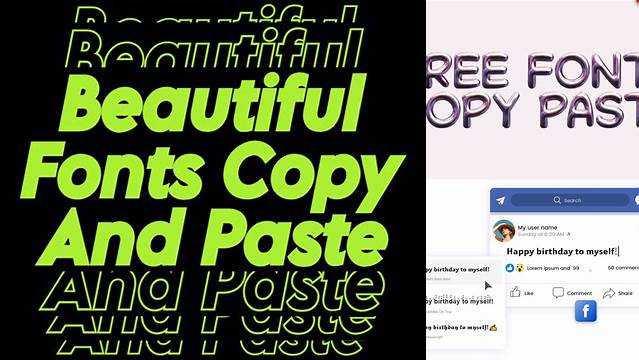
Free Bold Fonts: Copy & Paste Guide For Stunning Text
Hey guys! Ever felt like your text is just…blah? Like it needs a serious shot of bold energy? You're in the right place! In this article, we're diving deep into the world of free bold fonts, and how you can easily copy and paste them to create eye-catching designs. Forget boring text – let's make your words pop!
What are Bold Fonts and Why Do They Matter?
Let's start with the basics. What exactly are bold fonts? Simply put, they're fonts that have been made thicker and heavier than their regular counterparts. This added weight makes them stand out, grabbing the reader's attention and conveying a sense of importance. But why do they matter so much? Well, bold fonts are visual powerhouses. They're fantastic for headlines, subheadings, call-to-actions, and any text you want to emphasize. Imagine a poster without any bold text – it would be a monotonous wall of words! Bold fonts create hierarchy, guiding the reader's eye and highlighting key information. Think of them as the spotlights of the text world, ensuring that the important stuff shines. For example, when you're designing a website, strategically using bold fonts can make your headlines jump off the page, drawing visitors in and making them want to learn more. In a resume, bolding your job titles and key skills helps them stand out to potential employers. Even in everyday emails, bolding certain words can emphasize your point and prevent miscommunication. So, whether you're a designer, a marketer, a student, or just someone who wants to make their text look better, understanding and utilizing bold fonts is a game-changer. They're the secret weapon for adding impact and clarity to your written communication. It is crucial to understand how to effectively integrate bold fonts into your projects to maximize their impact. From websites to presentations, the strategic use of bold text can significantly enhance readability and engagement. Learning to identify the best contexts for bold fonts will help you create visually appealing and highly effective designs. This understanding also extends to choosing the right type of bold font, as different fonts convey different emotions and styles. The key is to use them judiciously to avoid overwhelming the reader and ensure that your message remains clear and concise.
1. Finding Free Bold Fonts Online
Okay, so you're sold on the power of bold fonts. Now, where do you find them? The internet is a treasure trove, guys! There are tons of websites offering free bold fonts for download and use. Sites like Google Fonts, Font Squirrel, and DaFont are excellent starting points. These platforms boast massive libraries, with thousands of fonts available for free, many of which have bold variations. When you're browsing, pay attention to the licensing. Most free fonts come with a license that specifies how you can use them – whether it's for personal projects, commercial work, or both. Make sure you understand the terms before you start incorporating the font into your designs. Google Fonts is particularly great because it offers a wide selection of open-source fonts that you can use freely in any project. Font Squirrel is known for its high-quality, hand-picked selection of free fonts, ensuring you get something truly special. DaFont is a classic resource, with a huge community and a diverse range of styles, but it's essential to double-check the license for each font you download there. The process of finding free bold fonts can be exciting, but it’s important to be discerning. Consider the style you're aiming for and the overall tone of your project. A bold font that's perfect for a playful logo might not be suitable for a professional document, and vice versa. Take your time to explore different options, and don’t be afraid to experiment. You might discover some hidden gems that perfectly match your creative vision. Remember, the right font can make all the difference, turning a good design into a great one. So, happy font hunting!
2. Copy and Paste Bold Text Using Online Generators
Sometimes, you don't need to download a whole font file. You just need to quickly make some text bold for a social media post, a comment, or a message. That's where online bold text generators come in handy! These tools allow you to type in your text, and with a single click, they'll transform it into bold using special Unicode characters. You can then simply copy and paste the generated bold text wherever you need it. Cool, right? Websites like YayText and LingoJam are popular choices. They offer a range of bold styles, from simple bold to italic bold and even fancier variations. Keep in mind that these generators use Unicode, which means the bold effect might not be visible everywhere. Some platforms or applications might not fully support these special characters, so always double-check how your text looks after you paste it. However, for most online uses, these generators are a super convenient way to add a touch of boldness to your words without the hassle of downloading and installing fonts. The versatility of these generators makes them incredibly useful for a variety of situations. For example, if you’re crafting a tweet and want to emphasize a particular point, a bold text generator can help you do that quickly and easily. Similarly, in online forums or chat rooms, using bold text can make your comments stand out and ensure that your message is clearly understood. While the visual appearance of the generated text might vary slightly depending on the platform, the underlying Unicode characters will generally maintain the bold effect. This is a fantastic tool for anyone who wants to add emphasis to their text in a pinch, without getting bogged down in font installations or complicated formatting procedures. The ease of copy and paste functionality makes it a seamless addition to any digital workflow, allowing for instant enhancements to your written communication.
3. Using HTML to Bold Text
If you're working on a website or any project that involves HTML, bolding text is a breeze. You can use the <strong>
or <b>
tags to make text bold. The <strong>
tag is used to indicate important text, while the <b>
tag is a more stylistic choice for making text bold without implying importance. In most cases, you'll want to use <strong>
for accessibility reasons, as screen readers will interpret it as significant. To use these tags, simply wrap the text you want to bold between the opening and closing tags. For example, <strong>This text will be bold</strong>
will render as This text will be bold. Similarly, <b>This text will also be bold</b>
will render as This text will also be bold. HTML provides a robust and semantic way to control the appearance of your text, ensuring that your formatting is both visually appealing and accessible. The key distinction between <strong>
and <b>
lies in their semantic meaning. While both tags make text visually bold, <strong>
signifies that the text has strong importance or urgency. This semantic information is crucial for assistive technologies like screen readers, which use it to convey the text's significance to users with visual impairments. The <b>
tag, on the other hand, simply makes the text bold without implying any additional importance. This makes it suitable for purely stylistic purposes, such as highlighting keywords or section headings where the emphasis is visual rather than semantic. By choosing the appropriate tag, you can ensure that your website is not only visually appealing but also accessible and user-friendly for everyone. Understanding the nuances of HTML formatting allows you to create well-structured and semantically rich content that enhances the overall user experience. Whether you're a web developer or a content creator, mastering these basic HTML elements is essential for effective communication and design.
4. Bold Fonts in Microsoft Word
For those of you who spend a lot of time in Microsoft Word (and let's be honest, who doesn't?), bolding text is super easy. There are several ways to do it. The most straightforward method is to select the text you want to bold and then click the "B" button in the Font section of the Home tab. Alternatively, you can use the keyboard shortcut Ctrl+B (or Cmd+B on a Mac). Another option is to right-click on the selected text and choose the Bold option from the context menu. Word also allows you to change the font to a bold version directly from the font dropdown menu. Many fonts come in regular, bold, italic, and bold italic variations. So, if you know you want all the text in a particular paragraph to be bold, you can simply choose the bold version of the font from the start. The flexibility of Word makes it a fantastic tool for creating documents with a polished and professional appearance. The ability to easily bold text is just one of the many features that contribute to its widespread use in academic, professional, and personal contexts. Whether you're writing a report, a letter, or a resume, mastering the formatting options in Word is essential for effective communication. Remember, the strategic use of bold text can significantly enhance the readability and impact of your documents, making it a valuable skill to develop. Word’s intuitive interface and versatile formatting options make it simple to emphasize key points and create visually appealing content, ensuring your message is conveyed clearly and effectively.
5. Bold Fonts in Google Docs
If you're a Google Docs user, you'll be happy to know that bolding text is just as simple as it is in Word. The process is very similar: select the text you want to bold, and then click the "B" button in the toolbar. You can also use the same keyboard shortcuts, Ctrl+B (or Cmd+B on a Mac). Google Docs also provides the option to right-click on the selected text and choose "Bold" from the menu. One of the great things about Google Docs is its collaborative nature. Multiple people can work on the same document simultaneously, and the formatting options, including bolding, are consistent across devices and platforms. This makes it easy to ensure that your documents look the way you intend them to, no matter who's viewing them or where they're being accessed. Google Docs' straightforward interface and real-time collaboration features make it an ideal tool for team projects and remote work. The convenience of accessing your documents from any device with an internet connection adds to its appeal, making it a versatile and user-friendly option for both personal and professional use. The consistency of formatting options, like bolding, across different devices ensures that your documents maintain their intended appearance and readability, regardless of the viewing environment. Whether you're working on a group presentation, a shared report, or a personal essay, Google Docs provides a reliable and efficient platform for creating and collaborating on documents. Its intuitive design and powerful features make it a go-to choice for many individuals and organizations.
6. Using Bold Text on Social Media
Social media platforms like Twitter, Facebook, and Instagram often have limited formatting options. You can't just click a bold button like you would in Word or Google Docs. That's where those online bold text generators we talked about earlier come in handy! You can use them to create bold text using Unicode characters and then copy and paste it into your posts, comments, and bios. This is a fantastic way to make your social media content stand out and grab attention in a crowded feed. Remember to use bold text sparingly, though. Too much bold can look overwhelming and detract from your message. Use it strategically to highlight key words, phrases, or calls to action. The visual impact of bold text can be particularly effective in social media, where users are often scrolling quickly through content. A well-placed bold word or phrase can catch the eye and encourage engagement, whether it's a call to action, a key selling point, or a humorous observation. However, it's crucial to strike a balance and avoid overusing bold text, as this can make your content appear cluttered and less readable. Think of bold text as a spotlight – use it to illuminate the most important aspects of your message. By employing bold text strategically, you can enhance the visibility and impact of your social media presence, driving engagement and ensuring that your message resonates with your audience. The key is to be mindful of the overall visual presentation and to use formatting elements like bold text to complement your content, rather than detract from it.
7. Different Types of Bold Fonts
Did you know there's more than one way to be bold? Fonts come in various weights, from light to extra bold. Some fonts even have multiple bold variations, such as semi-bold, bold, and extra bold. The specific bold styles available depend on the font family. Experiment with different bold weights to find the one that best suits your needs. A light bold might be perfect for subheadings, while an extra bold might be ideal for a headline that really needs to pop. The versatility in bold font options allows you to fine-tune the visual hierarchy of your text, ensuring that the most important elements stand out while maintaining a cohesive and balanced design. When selecting a bold font, consider the overall tone and style of your project. A clean and modern design might benefit from a minimalist bold font, while a more traditional design might call for a bolder, more decorative typeface. The subtle differences in bold weights can make a significant impact on the overall aesthetic, so it's worth exploring the various options available. By understanding the nuances of different bold fonts, you can create visually compelling and highly effective designs that communicate your message with clarity and impact. The ability to choose the right bold weight for the right context is a key skill for any designer or content creator, allowing for precise control over the visual presentation of text.
8. Pairing Bold Fonts with Other Fonts
Choosing the right font pairings can elevate your design from good to great. Bold fonts are often paired with lighter-weight fonts to create contrast and visual interest. For example, you might use a bold serif font for your headings and a lighter sans-serif font for your body text. The combination of these fonts provides a clear visual hierarchy, making your content easier to read and more engaging. When pairing fonts, look for fonts that complement each other in terms of style and personality. A classic serif font like Times New Roman pairs well with a clean sans-serif font like Arial or Helvetica. A modern sans-serif font like Open Sans or Roboto pairs nicely with a bolder, more distinctive serif font like Playfair Display or Merriweather. The key is to create a balance between contrast and harmony. You want the fonts to stand out from each other, but they should also work together to create a cohesive and visually appealing design. Effective font pairings are a hallmark of professional design, contributing to a polished and sophisticated look. The strategic use of contrasting font styles can significantly enhance readability and guide the reader's eye through the content. By carefully selecting font pairings, you can create a visual rhythm that engages the audience and reinforces the overall message. Experimentation is key to finding the perfect font combinations for your projects, allowing you to develop a unique visual identity and communicate effectively.
9. When to Use Bold Fonts
Knowing when to use bold fonts is just as important as knowing how to use them. Overusing bold text can make your content look cluttered and overwhelming. The key is to use bold fonts strategically to highlight key information and create visual hierarchy. Use bold fonts for headings, subheadings, and call-to-actions to draw the reader's eye to the most important elements of your content. You can also use bold fonts to emphasize specific words or phrases within a paragraph, but be careful not to overdo it. Think of bold fonts as a tool for emphasis – use them sparingly and purposefully to maximize their impact. The effective use of bold fonts can significantly improve the readability and clarity of your content. By highlighting key information, you can help readers quickly grasp the main points and navigate through the text with ease. Bold fonts also play a crucial role in creating a visual hierarchy, guiding the reader's eye from the most important elements to the supporting details. However, it's essential to maintain a balance and avoid excessive use of bold text, as this can create visual fatigue and detract from the overall aesthetic. The art of using bold fonts lies in knowing when and where to apply them to achieve the desired impact without overwhelming the reader.
10. When to Avoid Bold Fonts
Just as there are times when bold fonts are essential, there are also situations where it's best to avoid them. Overusing bold text can create a visually cluttered and overwhelming design. Avoid using bold fonts for long blocks of text, as this can make the text difficult to read. Similarly, avoid using bold fonts for purely decorative purposes, as this can detract from the message and create a sense of visual noise. It's also best to avoid using bold fonts in situations where a more subtle emphasis is desired. Sometimes, italics or a slightly larger font size can be a more effective way to highlight text without overpowering the design. The key is to consider the overall tone and style of your project and to use bold fonts sparingly and strategically. The judicious use of bold fonts is a hallmark of professional design, demonstrating an understanding of visual hierarchy and effective communication. By knowing when to avoid bold text, you can create designs that are both visually appealing and easy to read. Subtlety is often just as powerful as boldness, and in some cases, it can be even more effective in conveying your message. Understanding the nuances of typography allows you to make informed decisions about when and how to use bold fonts, ensuring that your designs are both impactful and visually balanced.
11. Bold Fonts for Headlines
12. Bold Fonts for Subheadings
13. Bold Fonts for Body Text
14. Bold Fonts for Call-to-Actions
15. Bold Fonts for Emphasis
16. Bold Fonts for Resumes